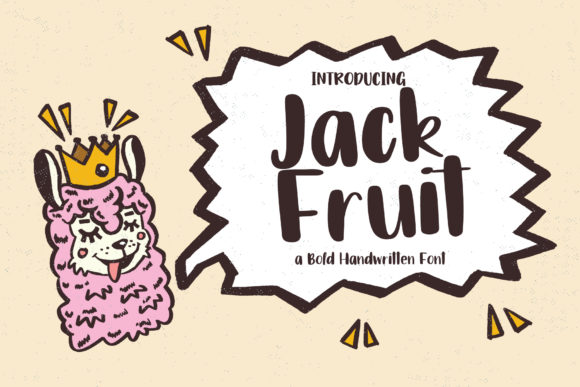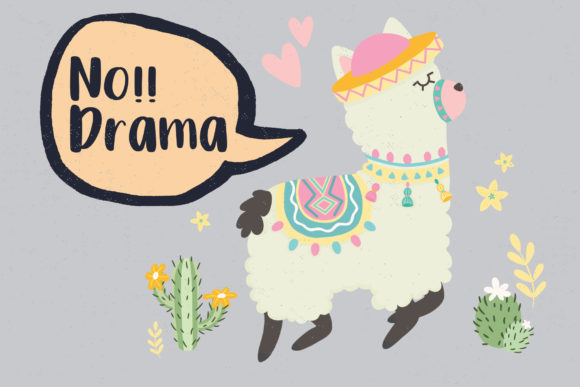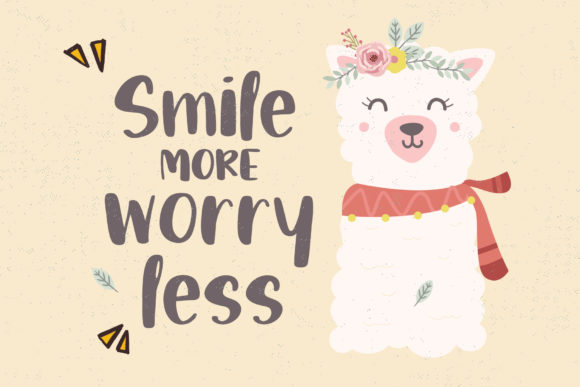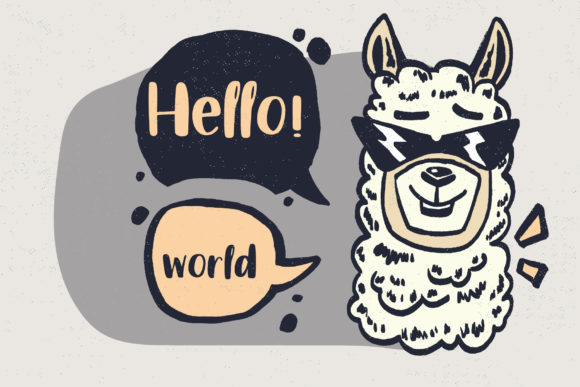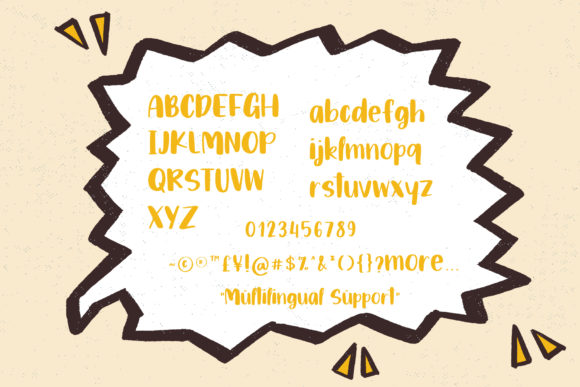
Jack Fruit Font
About Jack Fruit Font
Jack Fruit is a lovely, funny and cute handwritten font with bold letters. It will add a joyful spark to any design project!